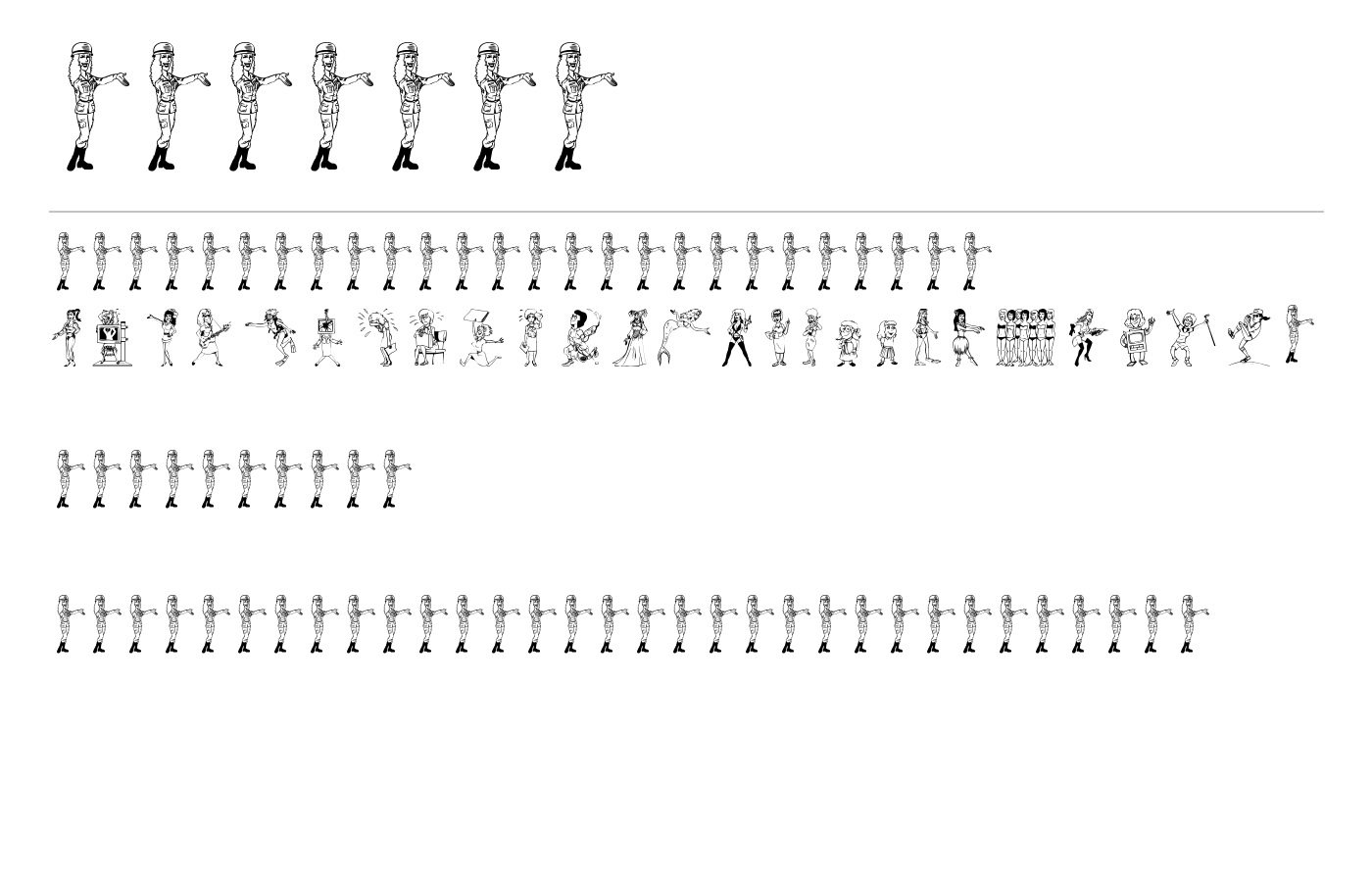
26WOMAN Font is a playful and highly detailed dingbat typeface featuring various illustrated female figures in diverse poses and activities. Its unique character set functions more as a collection of whimsical icons rather than traditional letters, making it perfect for creative projects, fashion branding, or artistic packaging that seeks a distinctive, hand-drawn charm. This font shines in expressive design contexts where individuality and storytelling through imagery are key.
26WOMAN Font